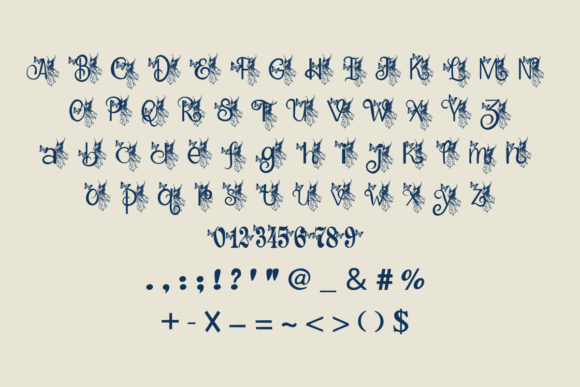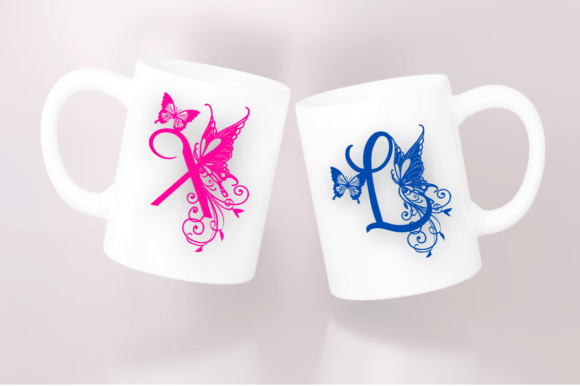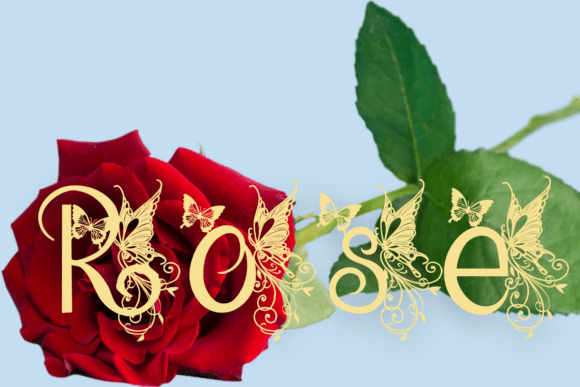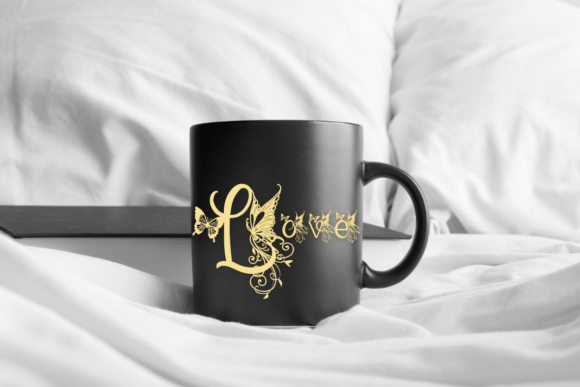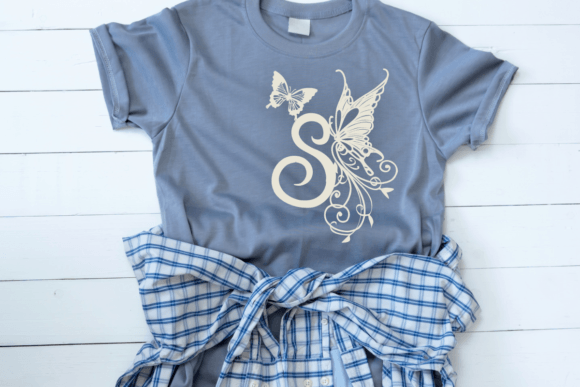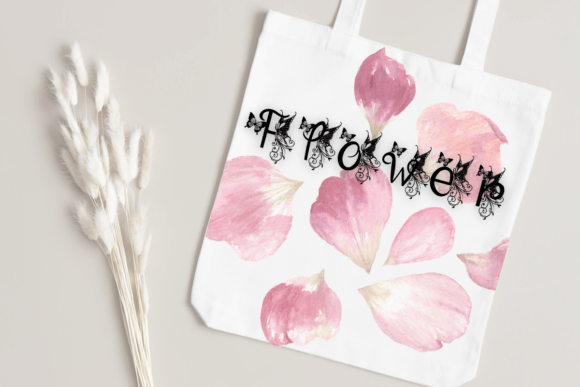
The Perfect Font for a Blooming Creation
There’s nothing quite like the feeling of staring at a blank canvas, waiting for inspiration to strike. The cursor blinks, and your mind starts racing with ideas – the perfect combination of colors, the ideal typography, and the magic that brings it all together. For designers, this moment is a thrill, and having the right tools can make all the difference. That’s where the Butterfly Flowers Font comes in – a gorgeous decorative font that’s perfect for elevating your creations and making them truly special.
This stunning font is more than just a pretty face; it’s a valuable asset for any designer looking to add a touch of whimsy and personality to their work. Whether you’re creating a summer-themed design, a wedding invitation, or simply want to add some flair to a blog post, the Butterfly Flowers Font is sure to impress.
Key Features of Butterfly Flowers Font
- Font Family: Butterfly Flowers Font is a unique, hand-drawn font that features a mix of floral and whimsical elements.
- Unique Characteristics: Features intricate, hand-drawn details and a mix of bold and delicate lines, making it perfect for adding a touch of whimsy to designs.
Review of Butterfly Flowers Font
I’ve had the chance to play around with the Butterfly Flowers Font and I have to say it’s quite an interesting piece of work. Here are my thoughts:
- The Butterfly Flowers Font has a unique, whimsical feel to it, which can be perfect for certain projects.
- The floral elements and the ‘butterfly’ motif add a playful touch that can bring a smile to people’s faces.
- The font seems to work well in titles, headings, and other large text applications.
- The font might be a bit too ornate for some projects, which could make it hard to read in certain contexts.
- The irregular shapes and lines can be distracting, especially when used for large blocks of text.
- The font seems to be more suited for digital use rather than print, where the irregularities might be more noticeable.
All in all, the Butterfly Flowers Font is a fun and quirky addition to any design project. While it might have its limitations, it can be a great choice for the right kind of project. Just be sure to use it thoughtfully and consider the context in which it will be used.
Use the Butterfly Flowers Font to add a whimsical touch to your designs. It’s perfect for:
- Children’s books and educational materials
- Summer-themed designs and graphics
The Butterfly Flowers Font is ideal for designs that require a playful and elegant touch. Some common use cases include:
- Event invitations and announcements
- Product packaging and branding
- Website headers and titles